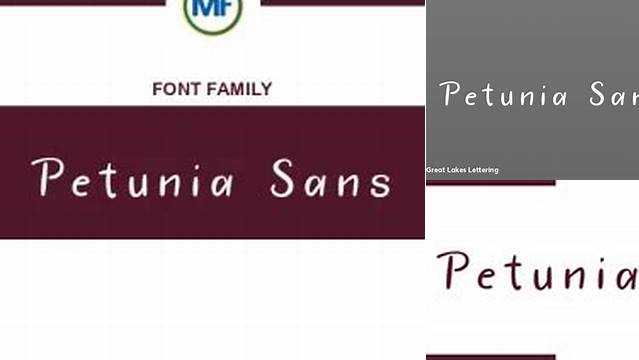
Petunia Sans: Free Font Guide & Download
Hey guys! Ever stumbled upon a font that just clicks? That’s how I felt when I first saw Petunia Sans. It's clean, it's modern, and best of all, it’s versatile! Finding the perfect font can be a game-changer for your projects, whether you're designing a website, crafting a logo, or just sprucing up a document. In this guide, we’re going to dive deep into the world of Petunia Sans, explore its features, and show you exactly how to get your hands on it for free. So, buckle up and let's get font-astic!
Understanding Petunia Sans Font
Let's kick things off by really understanding what makes Petunia Sans such a gem. This isn't just another font; it's a carefully crafted typeface designed with both readability and aesthetic appeal in mind. Petunia Sans falls into the sans-serif category, which means it lacks those little decorative strokes (serifs) you see in fonts like Times New Roman. This gives it a cleaner, more contemporary look, perfect for a wide range of applications. Think about it – sans-serif fonts are often used in websites, mobile apps, and branding materials because they offer excellent clarity, especially on screens. The beauty of Petunia Sans lies in its simplicity and elegance. It’s not overly flashy, but it's certainly not boring either. It strikes a fantastic balance, making it suitable for everything from professional documents to creative design projects. When you choose a font, you're choosing a voice for your words. Petunia Sans speaks clearly, confidently, and with a touch of modern flair. Whether you're writing headlines, body text, or even just designing a simple poster, this font can elevate your work and make it stand out. So, before we jump into where to download it and how to use it, let's appreciate the thoughtfulness behind its design. It’s this attention to detail that makes Petunia Sans a free font worth getting excited about. Stay tuned, because we’re about to explore its unique features in more detail!
Key Features of Petunia Sans
Okay, so we've established that Petunia Sans is pretty awesome, but what exactly makes it stand out from the crowd? Let's break down the key features that make this font a designer's dream. First off, let's talk about legibility. A font can be beautiful, but if it's hard to read, it's not doing its job. Petunia Sans nails legibility thanks to its clean lines, even spacing, and well-defined letterforms. This means your text will look crisp and clear, whether it's on a small mobile screen or a large poster. One of the things I personally love about Petunia Sans is its versatility. It comes in a range of weights, from light and airy to bold and impactful. This gives you a ton of flexibility to play around with different styles and create visual hierarchy in your designs. Need a delicate headline? Go for a light weight. Want to make a statement? The bold version will do the trick. Another crucial feature is its modern aesthetic. Petunia Sans feels fresh and contemporary, making it a great choice for brands and projects that want to convey a sense of innovation and forward-thinking. It’s the kind of font that doesn’t look dated, and that’s a huge plus in the fast-paced world of design. Furthermore, Petunia Sans often includes a comprehensive character set, which means it supports a wide range of languages and special characters. This is super important if you're working on international projects or need to include specific symbols or glyphs. In essence, the key features of Petunia Sans – legibility, versatility, modern aesthetic, and comprehensive character set – make it a powerhouse font that can handle just about anything you throw at it. Now that we know what it can do, let's figure out where to snag it for free!
Creative Ways to Use Petunia Sans in Your Projects
So, you've got Petunia Sans installed and ready to roll – fantastic! Now, let’s brainstorm some seriously cool ways you can use it in your projects. This font is so versatile, you can really let your creativity shine. First off, think about branding. Petunia Sans is perfect for creating a modern and approachable brand identity. Its clean lines make it great for logos, business cards, and website headers. Imagine a sleek, minimalist logo using a bold weight of Petunia Sans – it's instantly eye-catching and professional. Next up, web design. This is where Petunia Sans really excels. Its legibility makes it an excellent choice for body text, ensuring your website visitors have a pleasant reading experience. You can also use it for navigation menus, calls to action, and other UI elements. Try pairing it with a serif font for headlines to create a nice visual contrast. For print projects, Petunia Sans is equally impressive. Think brochures, flyers, posters, and even book layouts. Its versatility allows it to work well in both large and small sizes, making it a reliable choice for any print medium. If you're into social media, Petunia Sans can help you create engaging graphics and captions. Use it in your Instagram stories, Facebook posts, and Twitter banners to maintain a consistent brand aesthetic. Experiment with different weights and styles to make your content pop. Don't forget about presentations. A clean and readable font is crucial for keeping your audience engaged, and Petunia Sans fits the bill perfectly. Use it for your slide titles, bullet points, and body text to create a polished and professional presentation. Finally, consider using Petunia Sans for personal projects. Whether you’re designing invitations, creating custom stationery, or just sprucing up your resume, this font will add a touch of elegance and sophistication. The key to using Petunia Sans effectively is to experiment and have fun! Try it in different contexts, pair it with other fonts, and see what works best for your specific project. With its clean aesthetic and versatility, Petunia Sans is sure to become a go-to font in your design toolkit.
Petunia Sans for Logo Design
When it comes to logo design, choosing the right font is absolutely crucial. Your logo is the face of your brand, so you want a font that not only looks great but also communicates the right message. Petunia Sans is a fantastic option for logo design because it strikes a perfect balance between modernity and readability. Its clean, sans-serif design lends itself well to a wide range of industries and aesthetics. Think about it – a logo needs to be versatile. It needs to look good on a website, on a business card, and on a billboard. Petunia Sans delivers on all fronts. Its simple yet elegant letterforms ensure that your logo will be legible at any size. One of the best things about Petunia Sans is its adaptability. You can use different weights and styles to create different moods and effects. A bold weight can convey strength and confidence, while a lighter weight can create a more delicate and refined feel. Consider the personality you want your brand to project. Is it modern and tech-savvy? Or is it more classic and sophisticated? Petunia Sans can be tailored to fit either of these styles, and everything in between. When you're designing a logo, it's also important to think about how the font will pair with other design elements, such as colors and icons. Petunia Sans is a great choice because it plays well with others. It doesn't overpower the design, but it still holds its own and makes a statement. Experiment with different letter combinations and spacing to create a unique and memorable logo. Sometimes, even small tweaks can make a big difference. Don't be afraid to get creative and push the boundaries. Remember, your logo is your brand's first impression, so you want to make it count. With its clean lines, versatility, and modern aesthetic, Petunia Sans can help you create a logo that stands the test of time.
Using Petunia Sans in Web Design
Alright, let's talk about web design! In the digital world, typography plays a huge role in user experience. A website with a poorly chosen font can be difficult to read and off-putting to visitors. That's why selecting the right font for your website is so important, and Petunia Sans is a stellar choice for web design. One of the primary reasons Petunia Sans works so well online is its legibility. On-screen readability is crucial, especially for body text. Petunia Sans boasts clean lines and well-defined letterforms, making it easy on the eyes even for extended reading sessions. Think about it: you want your website visitors to focus on your content, not struggle to decipher the text. Another key advantage of Petunia Sans is its versatility. Websites often require a variety of font styles – for headings, body text, navigation menus, and more. Petunia Sans offers a range of weights and styles, allowing you to create a cohesive and visually appealing design. You can use a bold weight for headings to grab attention and a lighter weight for body text to ensure readability. Pairing fonts is an art, and Petunia Sans plays nicely with other typefaces. It works beautifully with both serif and sans-serif fonts, giving you plenty of creative freedom. Consider pairing it with a classic serif font for headings to create a sophisticated and balanced look. Or, stick with a sans-serif pairing for a clean and modern feel. When using Petunia Sans in web design, it's important to pay attention to font size and line height. These factors can significantly impact readability. Make sure your text is large enough to read comfortably, and adjust the line height to create adequate spacing between lines. Remember, mobile responsiveness is essential in today's web design landscape. Petunia Sans looks great on all devices, from desktops to smartphones. Its clean design ensures that your website will be legible and visually appealing, no matter how your visitors are accessing it. In the world of web design, typography is a powerful tool. With its legibility, versatility, and modern aesthetic, Petunia Sans can help you create a website that not only looks great but also provides an exceptional user experience.
Petunia Sans for Print Projects
Moving from the digital realm to the tangible world, let’s explore how Petunia Sans shines in print projects. Whether you're designing brochures, flyers, posters, or even books, the right font can make a world of difference. Print design has its own set of considerations compared to web design. While on-screen readability is crucial online, print requires a font that looks crisp and clear in physical form. Petunia Sans excels in this area thanks to its clean lines and well-defined letterforms. Its legibility ensures that your printed materials will be easy to read, whether they're held up close or viewed from a distance. One of the great things about Petunia Sans is its versatility, which is especially valuable in print design. You might need different font styles for headlines, body text, captions, and other elements. Petunia Sans offers a range of weights and styles, allowing you to create a cohesive and visually appealing design across all your printed materials. Think about the message you want to convey with your print project. A bold weight of Petunia Sans can make a strong statement for a poster or flyer, while a lighter weight can lend a touch of elegance to a brochure or invitation. The key is to choose the right style for your specific needs. When designing for print, it's important to pay attention to details like font size, kerning, and leading. These elements can significantly impact the overall look and feel of your project. Make sure your text is large enough to read comfortably, and adjust the spacing between letters and lines to create a visually balanced design. Petunia Sans works well in a variety of print applications. It’s a fantastic choice for brochures and catalogs, providing a clean and professional look. It also shines in posters and flyers, making your message clear and impactful. And for longer documents like books and reports, Petunia Sans offers excellent readability, ensuring a pleasant reading experience. In the world of print design, typography is a powerful tool. With its legibility, versatility, and modern aesthetic, Petunia Sans can help you create printed materials that make a lasting impression.
Using Petunia Sans in Social Media Graphics
In today's digital age, social media is a powerhouse for communication and branding. If you're aiming to make your social media graphics pop, choosing the right font is absolutely essential. This is where Petunia Sans steps into the spotlight. Why? Because it’s a versatile and modern font that can seriously elevate your social media presence. Think about it: your social media graphics are often the first impression people have of your brand. You want to make sure they’re visually appealing, easy to read, and consistent with your overall branding. Petunia Sans ticks all these boxes. One of the key strengths of Petunia Sans for social media is its legibility. People are often scrolling quickly through their feeds, so you need a font that grabs their attention and delivers your message clearly. Petunia Sans’s clean lines and well-defined letterforms make it super easy to read, even at smaller sizes. Versatility is another huge plus. Social media graphics come in all shapes and sizes, from square Instagram posts to wide Facebook banners. Petunia Sans offers a range of weights and styles, giving you the flexibility to create different moods and effects. Use a bold weight for headlines to make a statement, and a lighter weight for captions and body text to ensure readability. Consistency is key when it comes to social media branding. Using the same font across all your graphics helps create a cohesive and professional look. Petunia Sans is a great choice because it’s versatile enough to work in a variety of contexts, from promotional graphics to inspirational quotes. When designing social media graphics, think about how the font will pair with your images and colors. Petunia Sans is a great team player. It complements other design elements without overpowering them, allowing your visuals to shine. Experiment with different font sizes, colors, and placements to create eye-catching designs. Don't be afraid to get creative and try new things. Remember, social media is all about grabbing attention and making an impact. With its clean aesthetic, versatility, and readability, Petunia Sans can help you create social media graphics that stand out from the crowd.